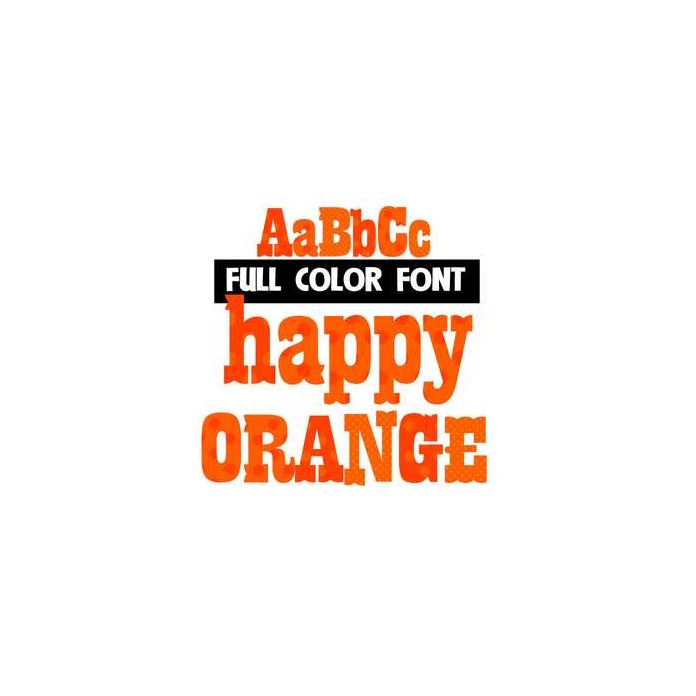
This full-color font features orange polka-dot patterns. This font works best for titles, displays, posters and more. Please note color fonts will show as black in non compatible programs. This font type is compatible with Silhouette Studio.